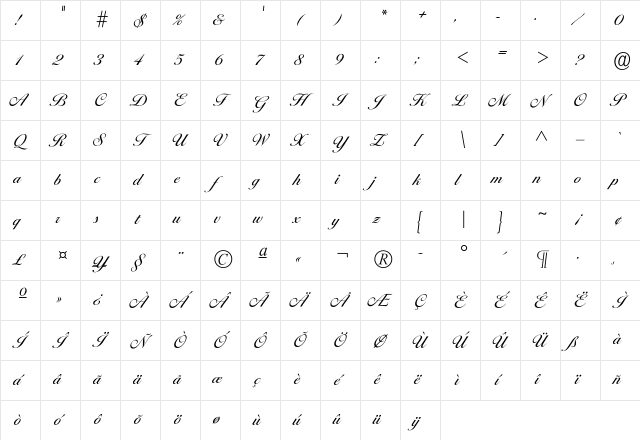
Complete Iballantines-Regular glyph index. Displaying only characters natively supported by Iballantines-Regular font.
Iballantines-Regular is a composed and adaptable typeface that performs quietly and consistently across a wide range of design contexts.